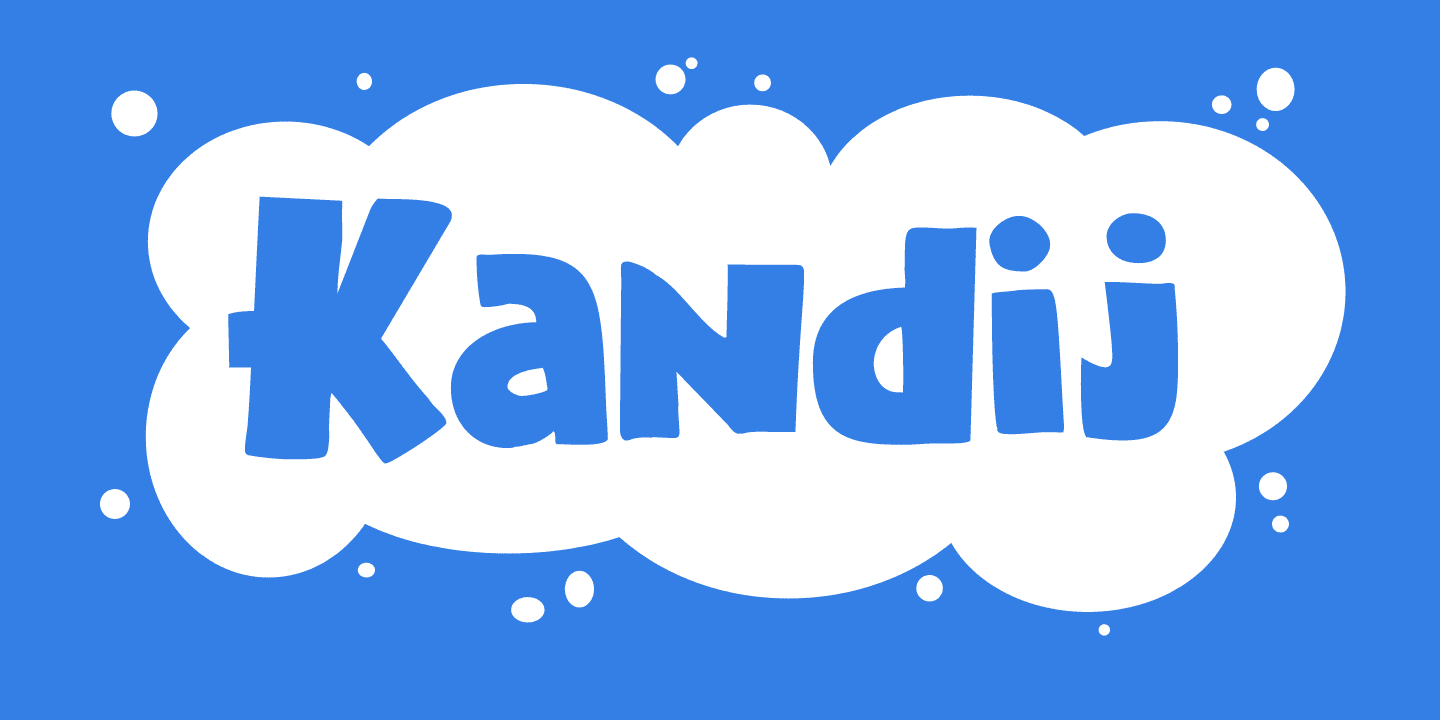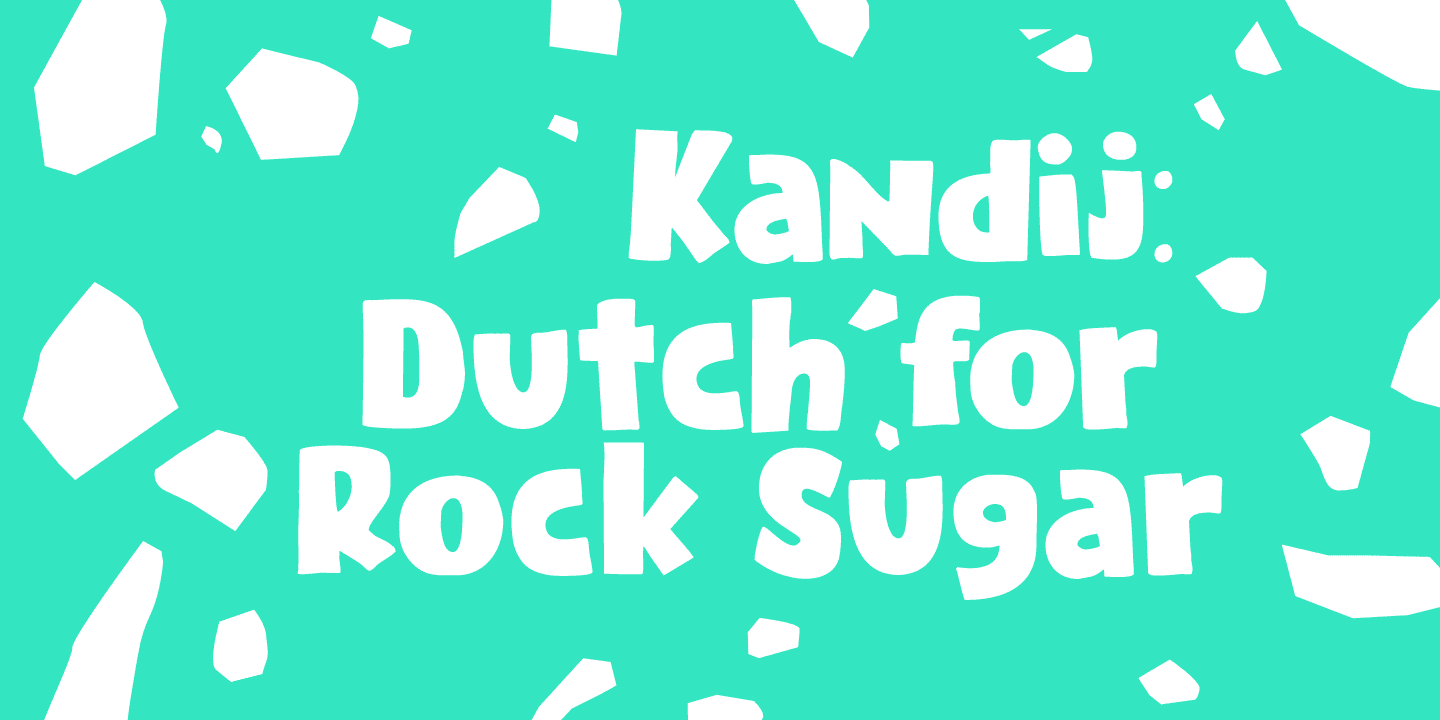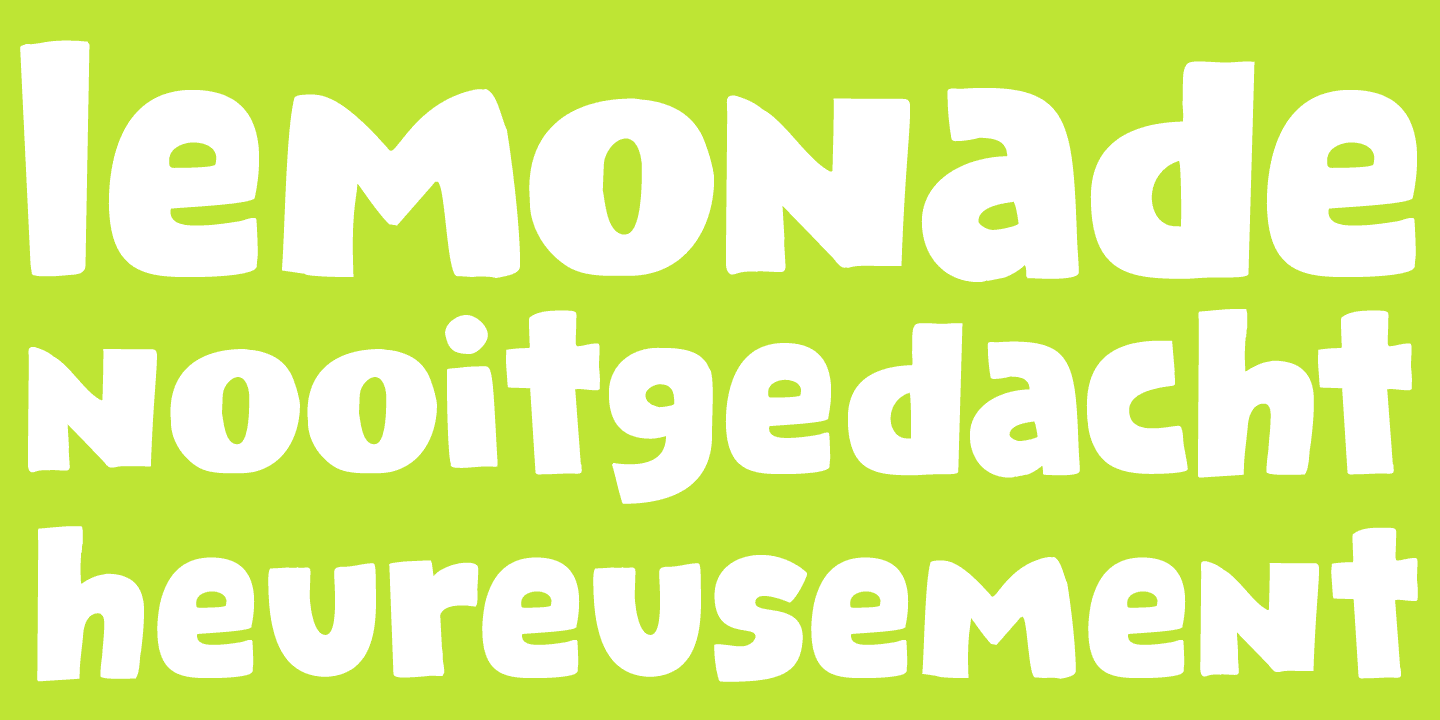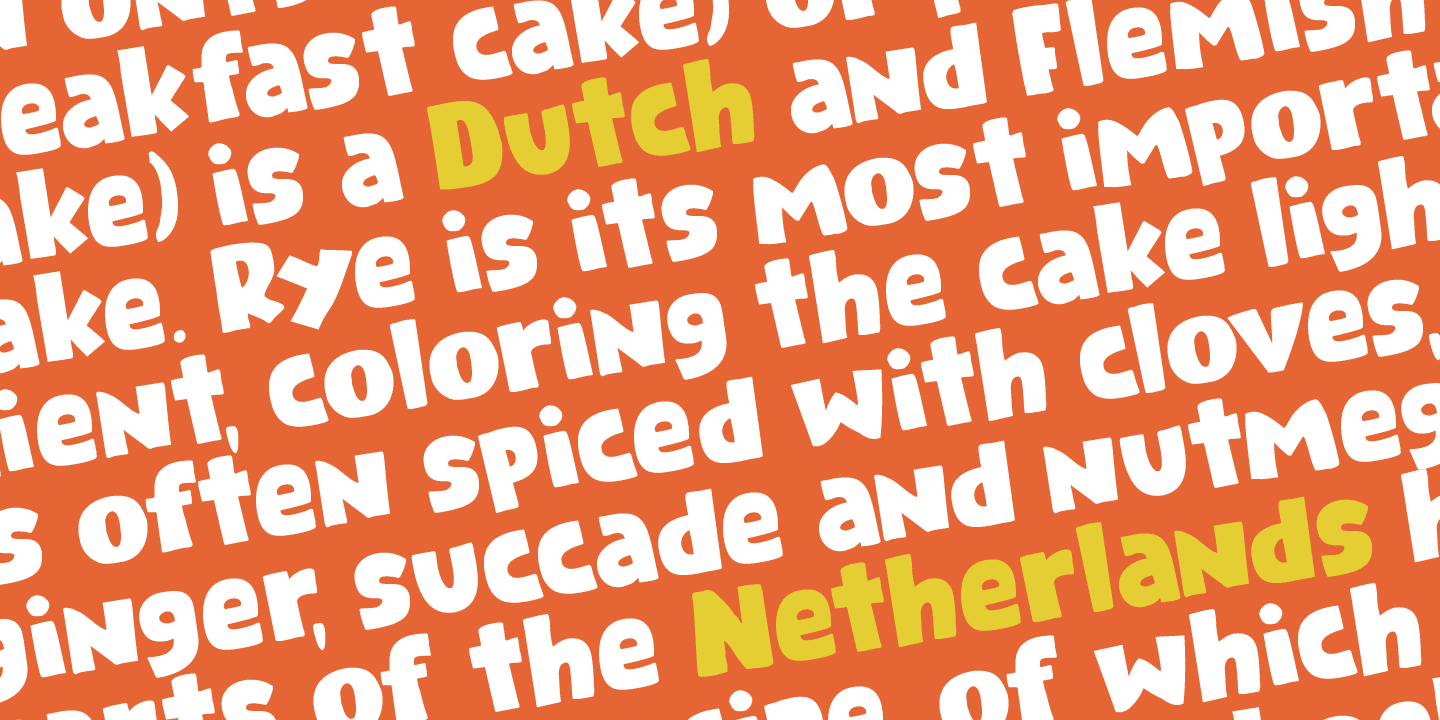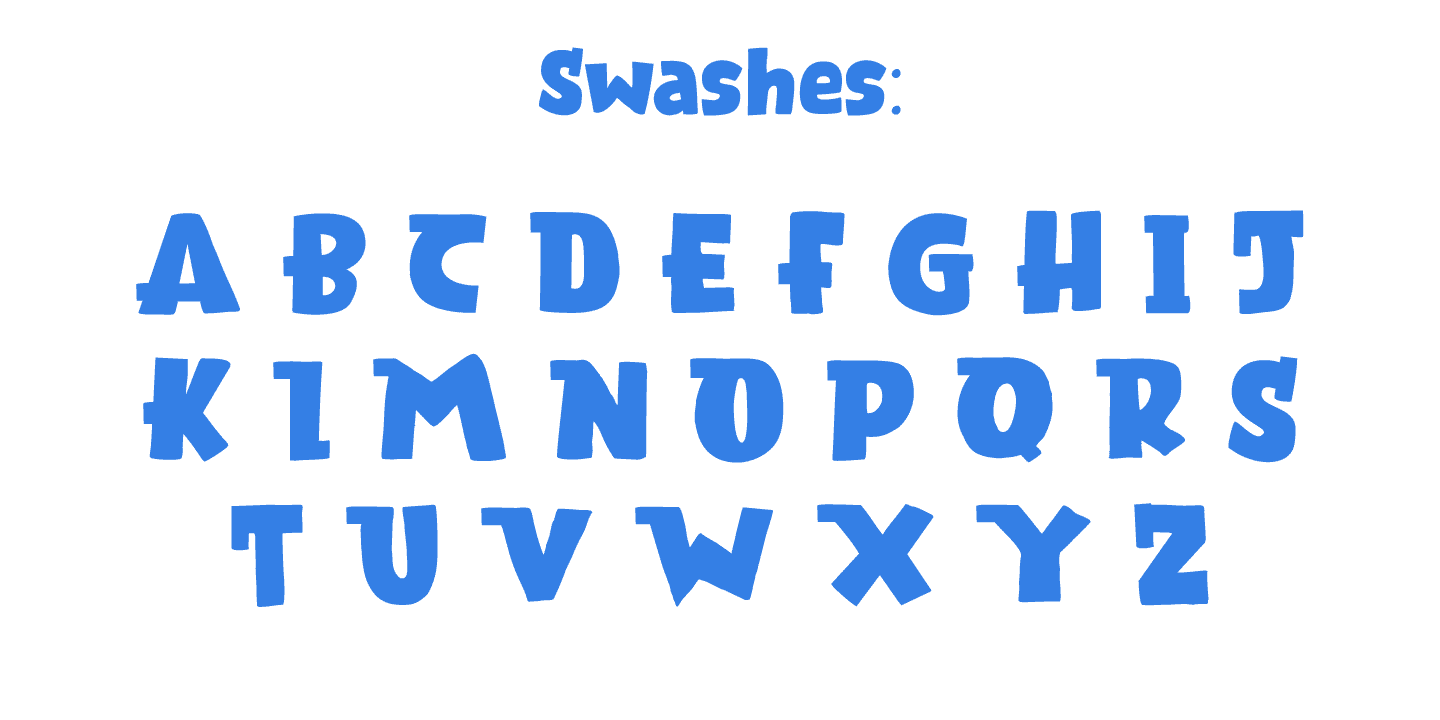
Kandij Family (2 fonts)
Kandij is a fat and happy font. I’d probably use it for any book or product aimed at children, as it has a certain lumpy cuteness. Comes with diacritics and swashes for the upper case letters.